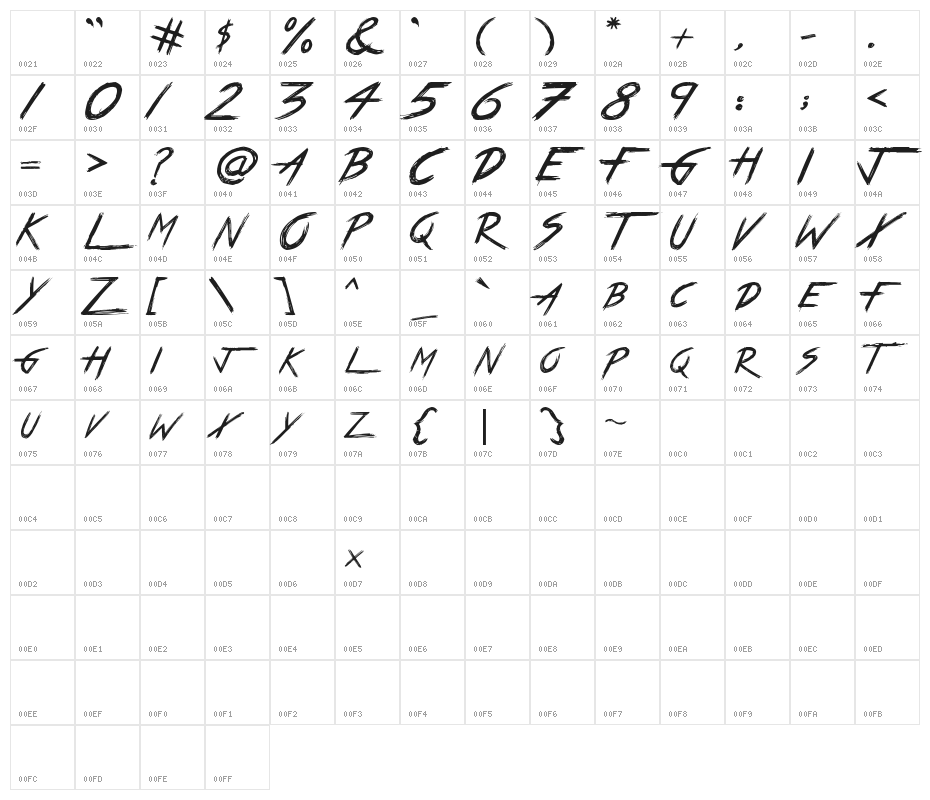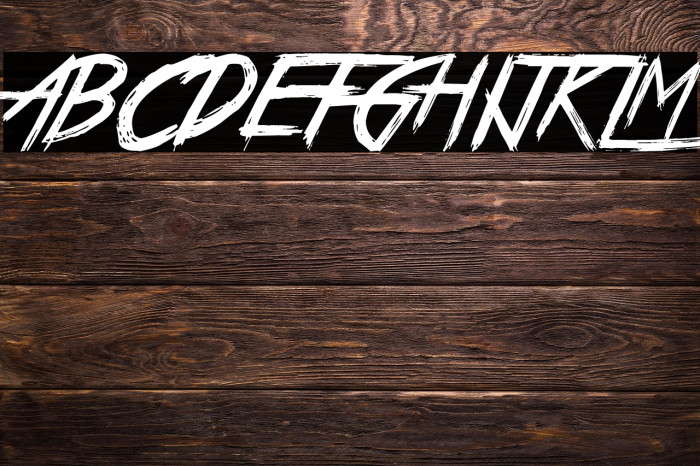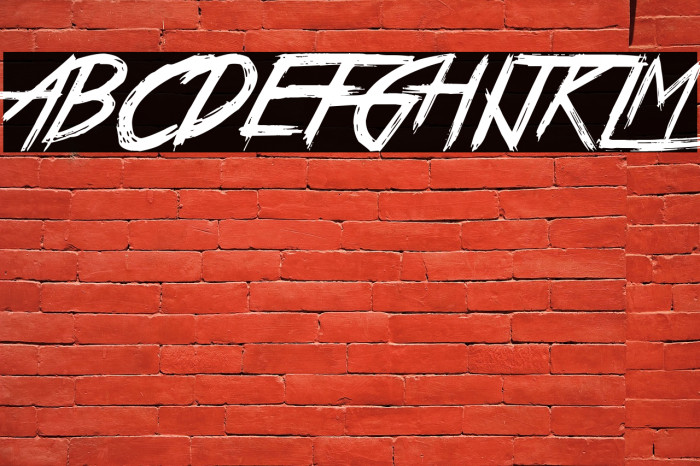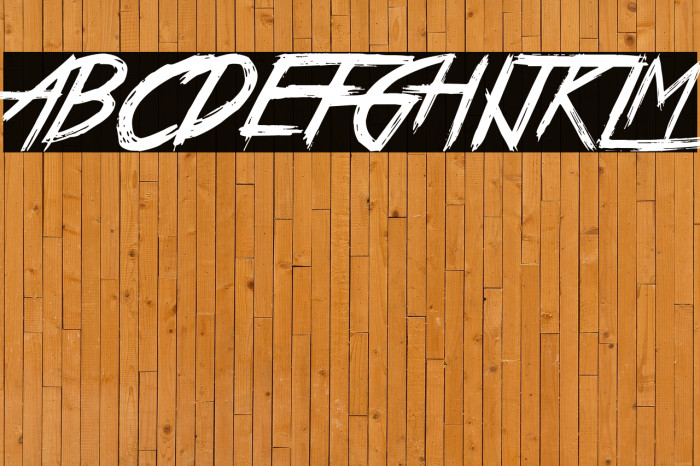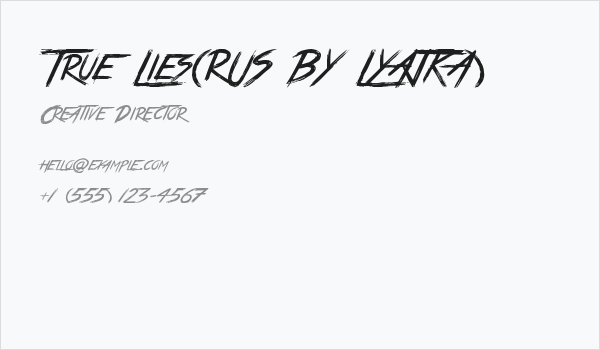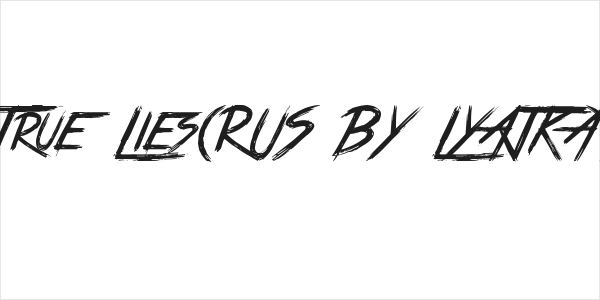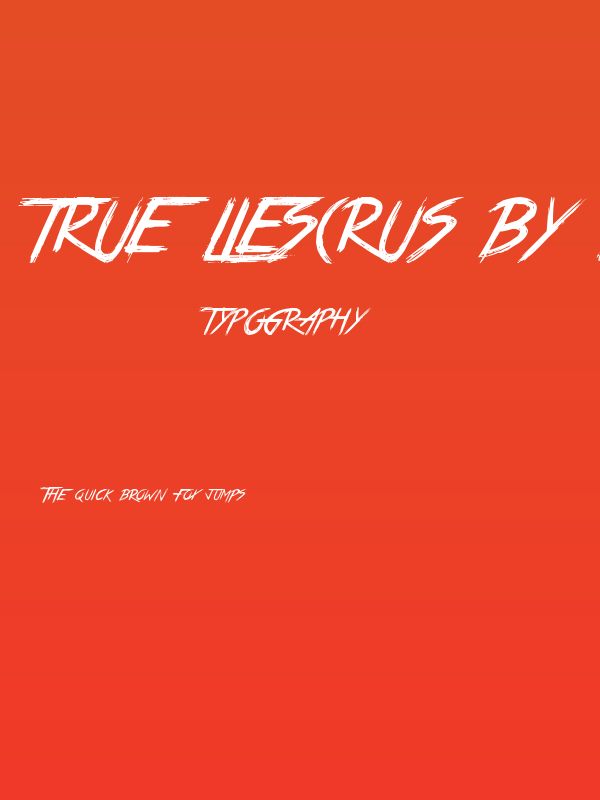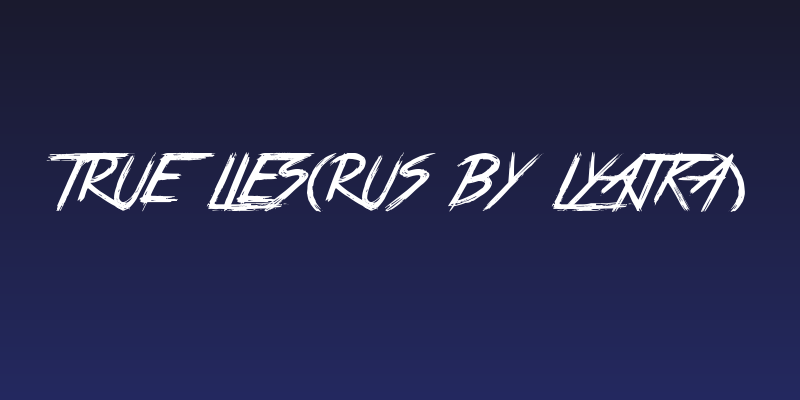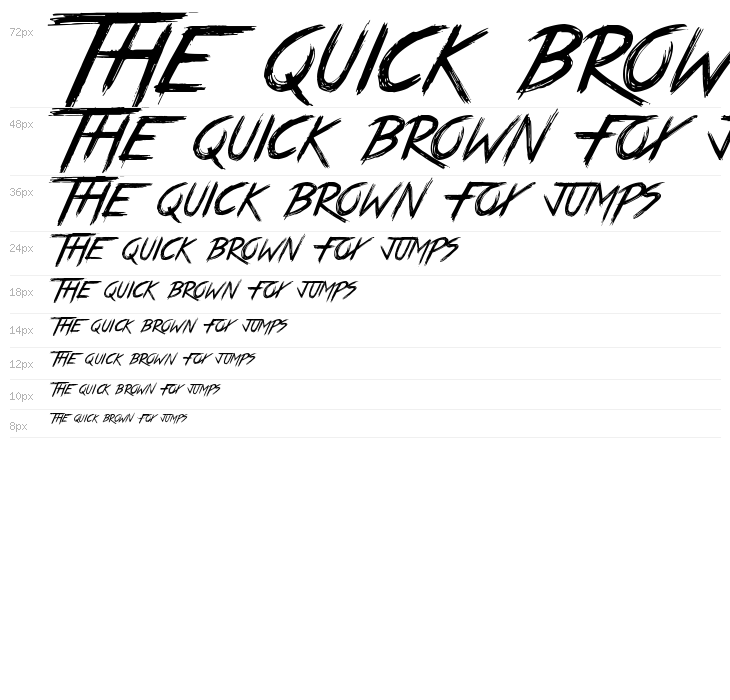
True Lies(RUS BY LYAJKA) Font
True Lies(RUS BY LYAJKA) Description
This font exhibits a bold, dynamic style with a brush-like texture that gives it a raw, energetic feel. The characters are slanted, adding a sense of motion and urgency. The strokes are uneven, with varying thickness that creates a high contrast and a sense of spontaneity. This font is highly expressive, with a hand-drawn appearance that suggests a rebellious or edgy tone. The uppercase and lowercase letters maintain a consistent style, while the numbers and special characters are equally bold and impactful. The overall design is striking and attention-grabbing, making it suitable for projects that require a strong visual statement.
Overall StyleModern, Edgy
Proposed ProjectsIdeal for music album covers, movie posters, graffiti art, and edgy branding projects.